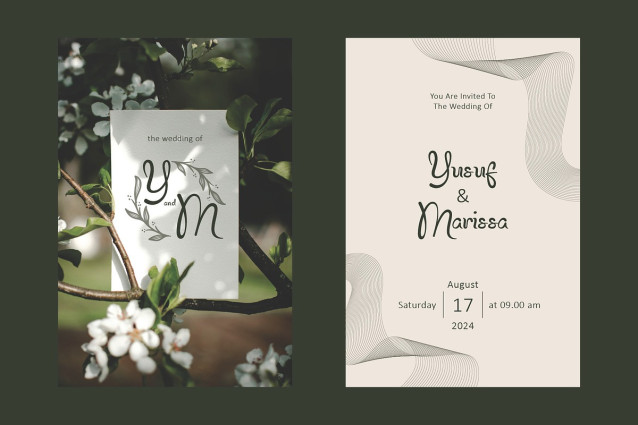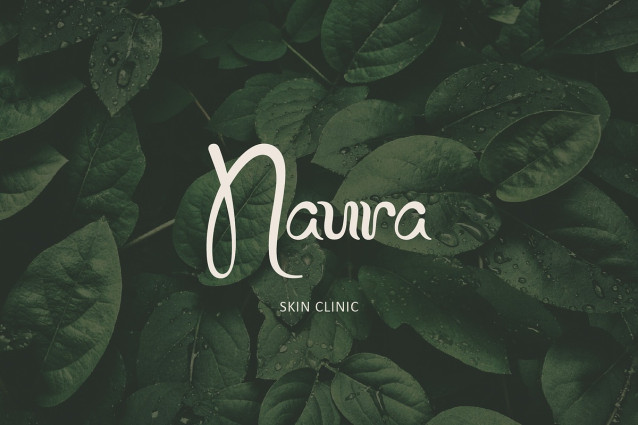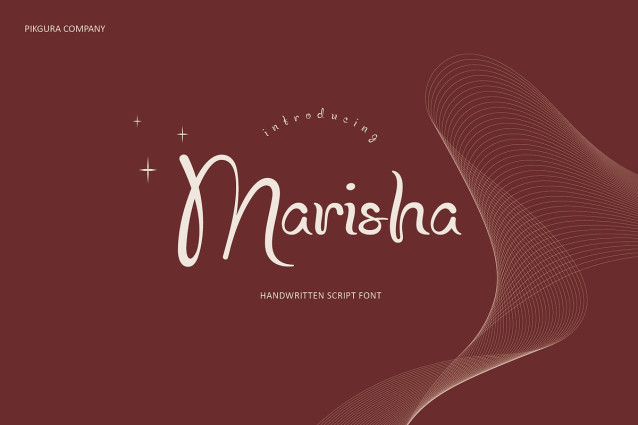
PGR Marisha Font
PGR Marisha Font – Whether you’re creating wedding invitations, greeting cards, logos, or any other design that requires a touch of class, Marisha is the perfect choice. Its elegant lines and refined style will elevate your designs to new heights.